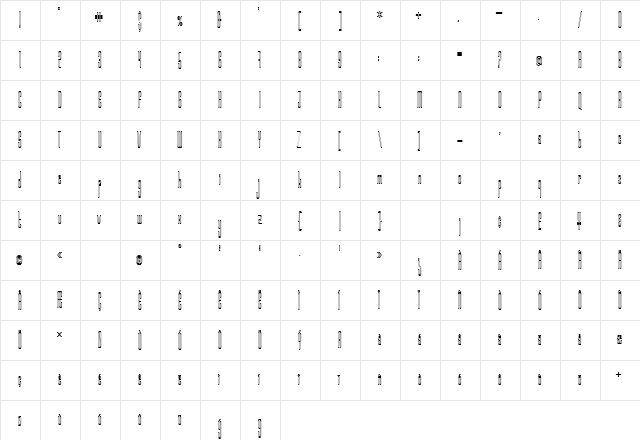
Marbellya Condensed Outline Regular
Design Context for Marbellya Condensed Outline Typeface
Marbellya Condensed Outline is built around its visual character rather than neutral utility — its distinctive forms are designed to make an impression at display sizes.
Font Pairing: Pair with a clean neutral sans-serif for body copy to let Marbellya Condensed Outline's character lead without overwhelming the composition.
Pro Tip: Use Marbellya Condensed Outline exclusively at display sizes — it was designed to be seen, not read at length. Let a neutral companion handle body copy.